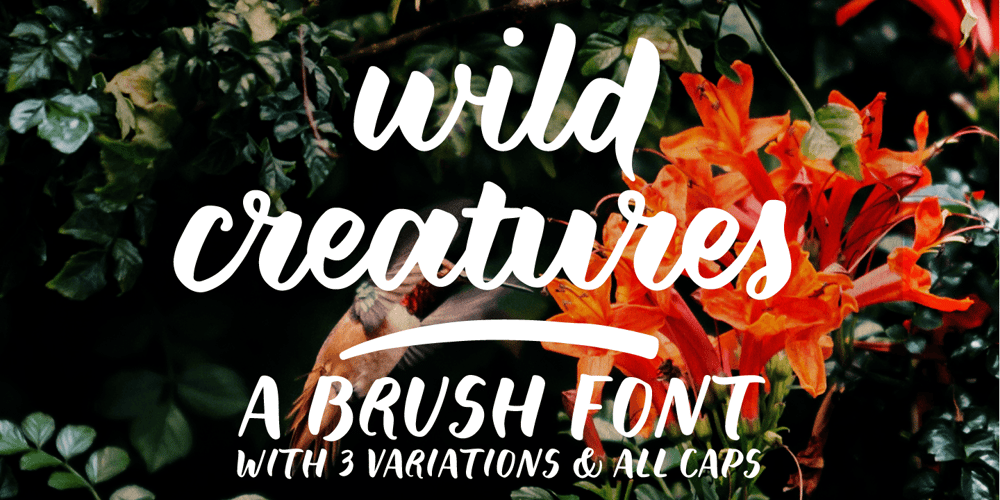
Wild Creatures Font Family was designed by Ana Parracho and published by Ana’s Fonts. Wild Creatures contains 4 styles and family package options. Wild Creatures is a bold brush font, in three variations: regular, jumpy and jumpier. The jumpy and jumpier versions of the font include contextual alternates OpenType feature to give the font a bouncy and bouncier baseline. Wild Creatures also includes an all caps feature and a swash dingbat font, perfect to decorate your lettering designs.Use Wild Creatures in all your modern designs, such as quotes, branding, postcards.